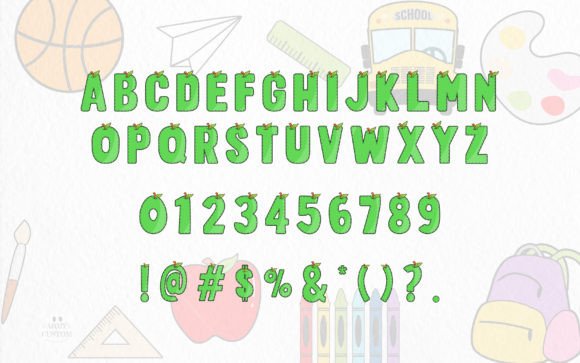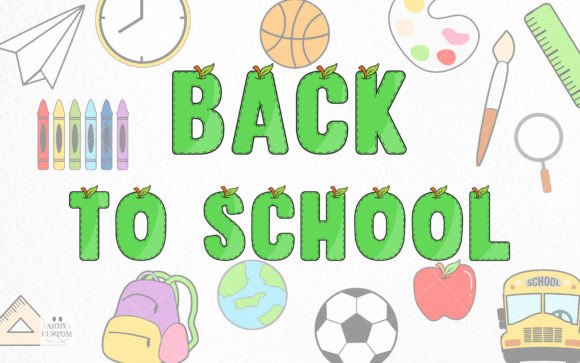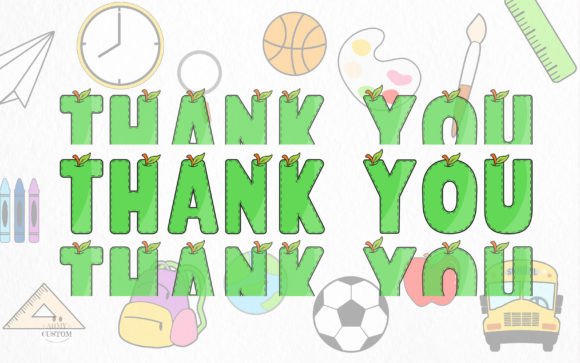
Get Ready to Make a Splash with Your Designs!
Have you ever stared at a blank canvas, waiting for inspiration to strike? The blank page syndrome is a common affliction among creatives, but what if you had the perfect tool to give your ideas a boost? That’s where the Apple Army Font comes in – a vibrant and versatile color font designed to add a pop of excitement to your projects.
Apple Army Font Key Features
- Font Family: Apple Army Font is a sans-serif font family designed to mimic the aesthetic of the Apple brand.
- Unique Characteristics: Apple Army Font features a distinctive, modern design with a focus on clean lines, geometric shapes, and a subtle rounded edge.
Designer Review: Apple Army Font
Overall, I think Apple Army Font is an interesting addition to the world of sans-serif fonts. The font is reminiscent of classic military fonts, which is reflected in its name and design.
- ✨ Clean lines and modern aesthetic: Apple Army Font has a crisp and clean design that makes it perfect for modern designs and interfaces.
- ✨ Strong legibility: The font is highly legible, making it suitable for body text and titles.
- ✨ Good for titles and headings: Apple Army Font has a strong, bold feel that makes it perfect for titles and headings.
- ⚠️ Limited stylistic variations: Apple Army Font is a relatively straightforward font with limited stylistic variations, which may make it less appealing to designers looking for more creative options.
- ⚠️ Limited language support: Apple Army Font may not support all languages, which may limit its use in international designs.
Overall, I think Apple Army Font is a solid choice for designers looking for a clean, modern sans-serif font. However, its limitations may make it less appealing to designers looking for more creative or versatile options.
The Apple Army Font is a bold, sans-serif font that works well for headings and titles. Use it to add a touch of modernity to your designs. Some common use cases include:
- Headings and titles in marketing materials and websites.
- Product labels and packaging.
- Social media graphics and advertisements.
Remember to use the Apple Army Font consistently throughout your design to create a cohesive look and feel.